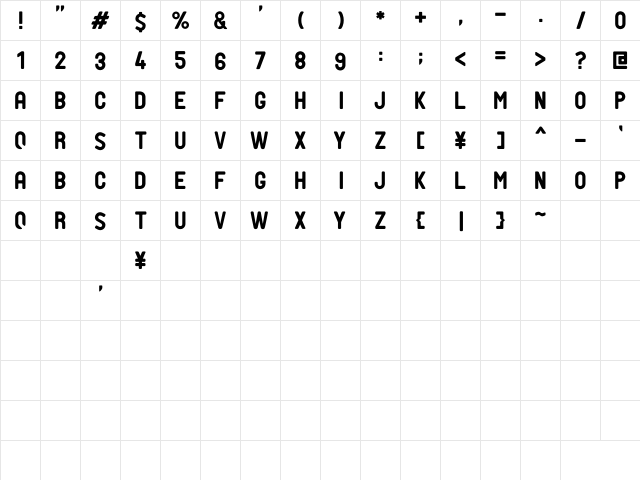
PTF NORDIC Rnd Normal
Design Context for PTF NORDIC Rnd Typeface
PTF NORDIC Rnd is a composed and adaptable typeface that performs quietly and consistently across a wide range of design contexts.